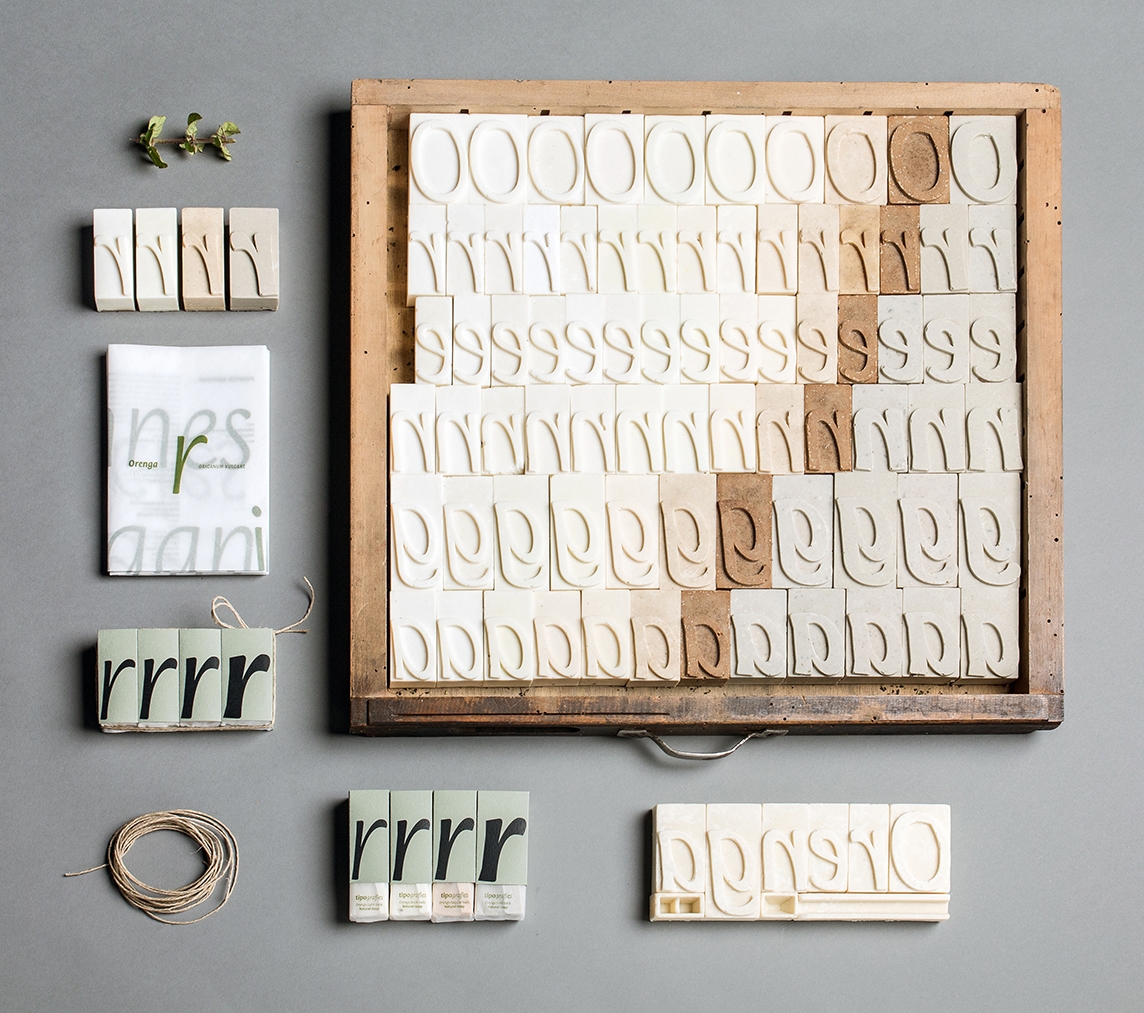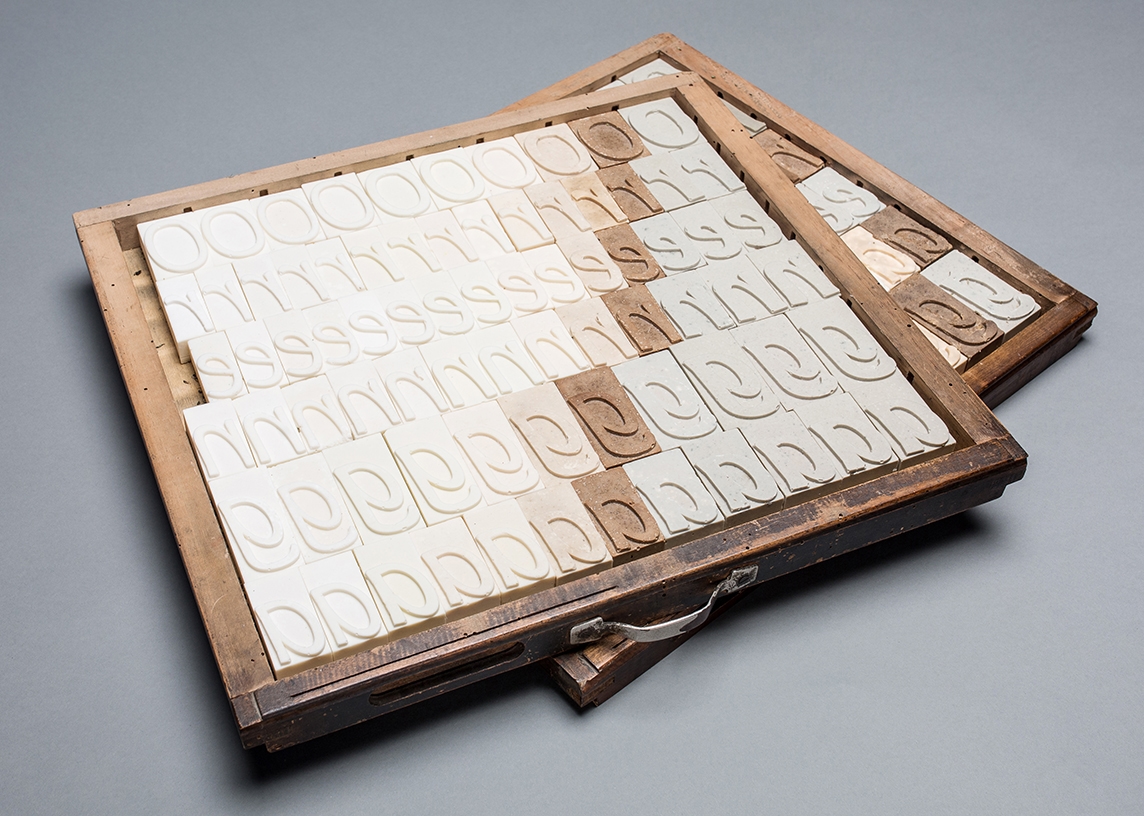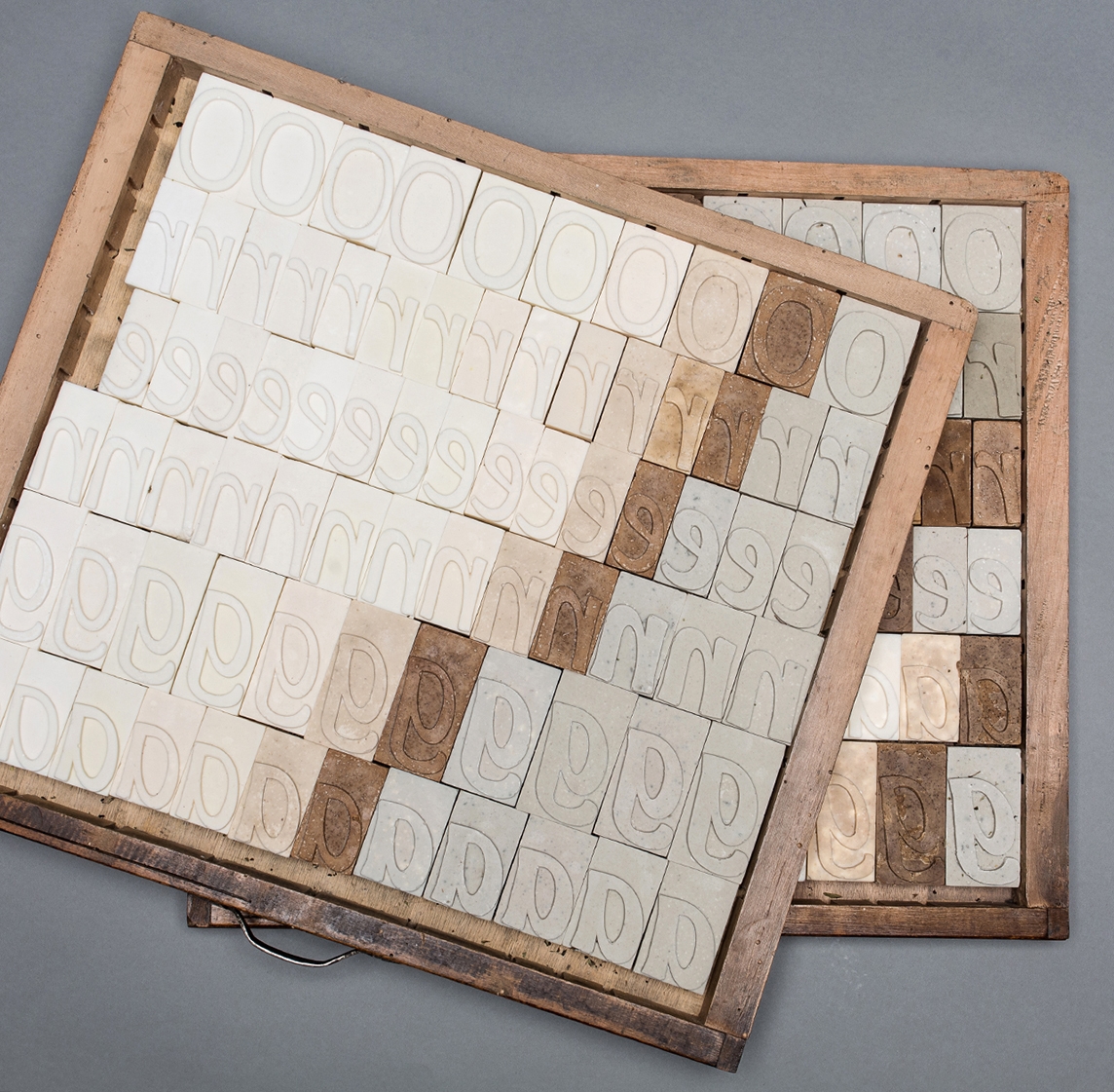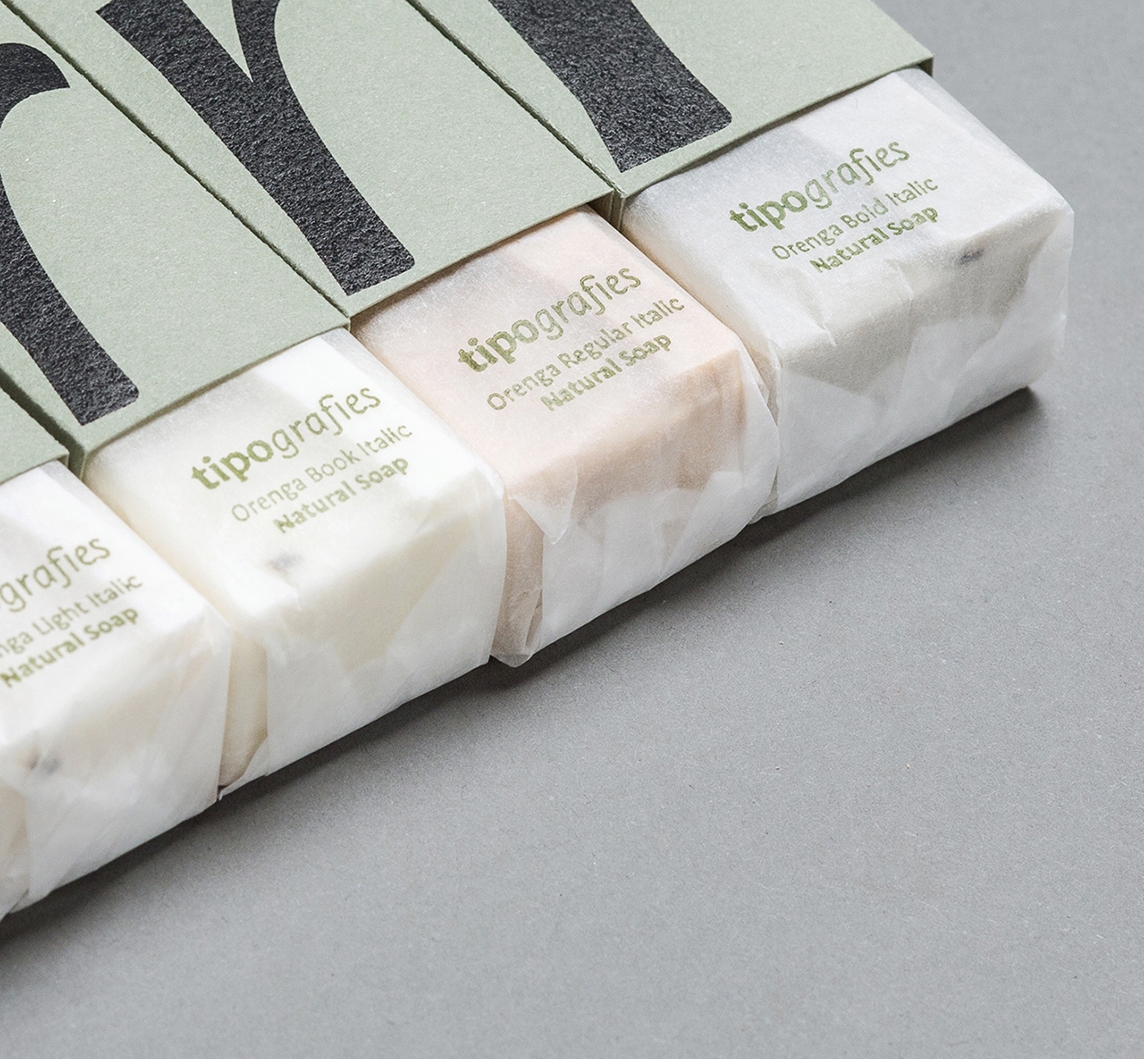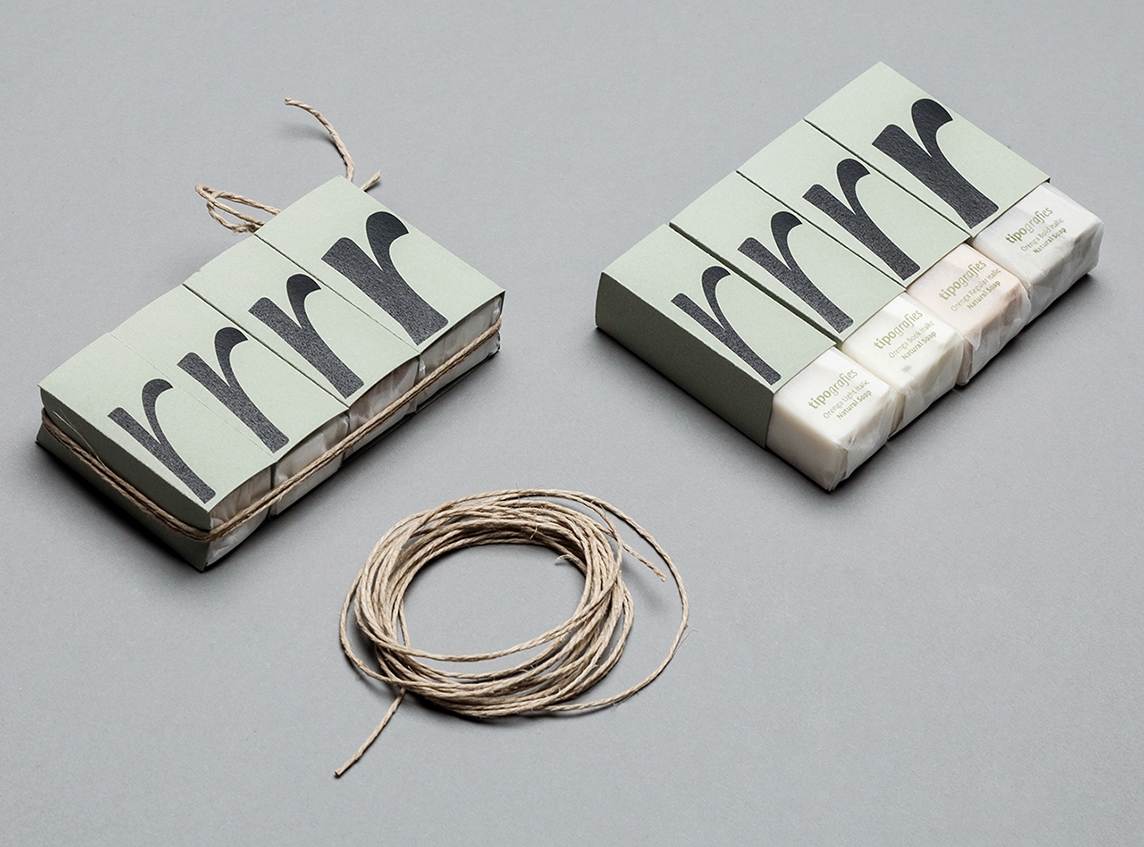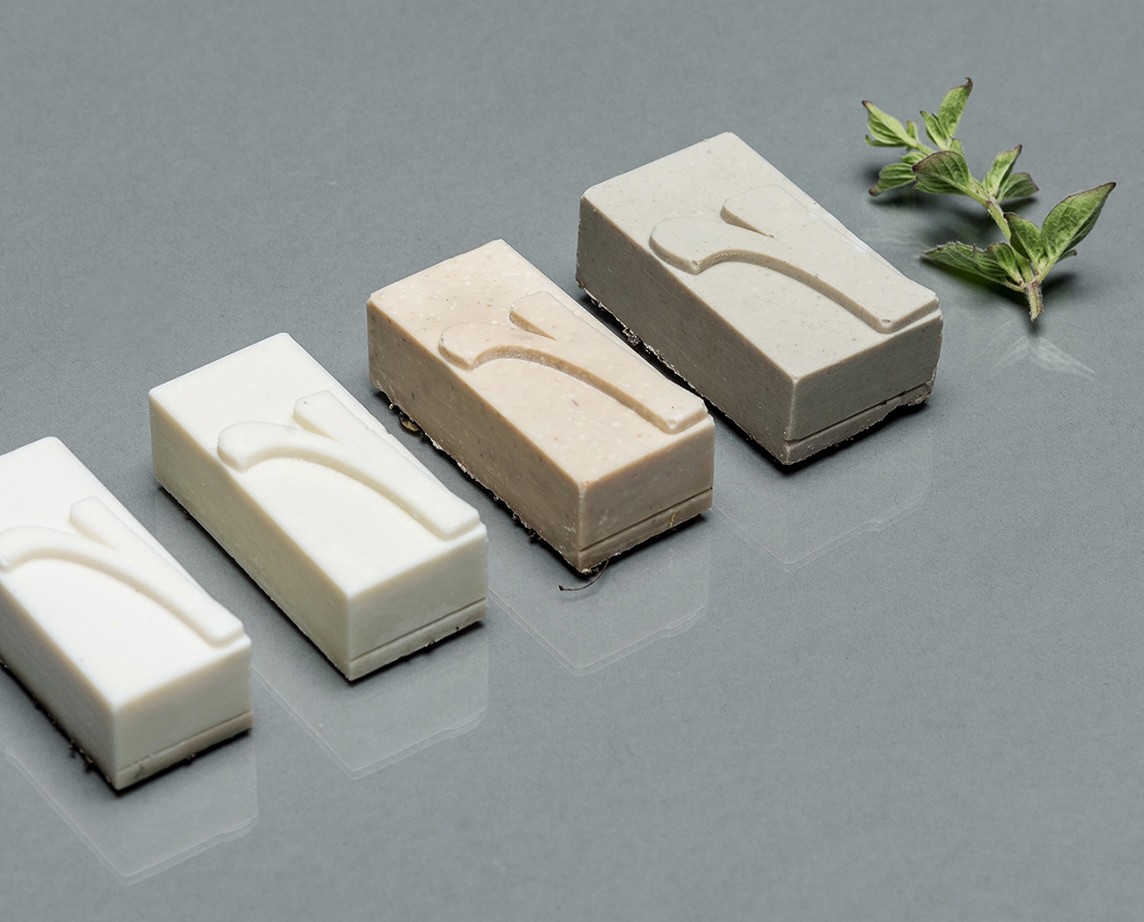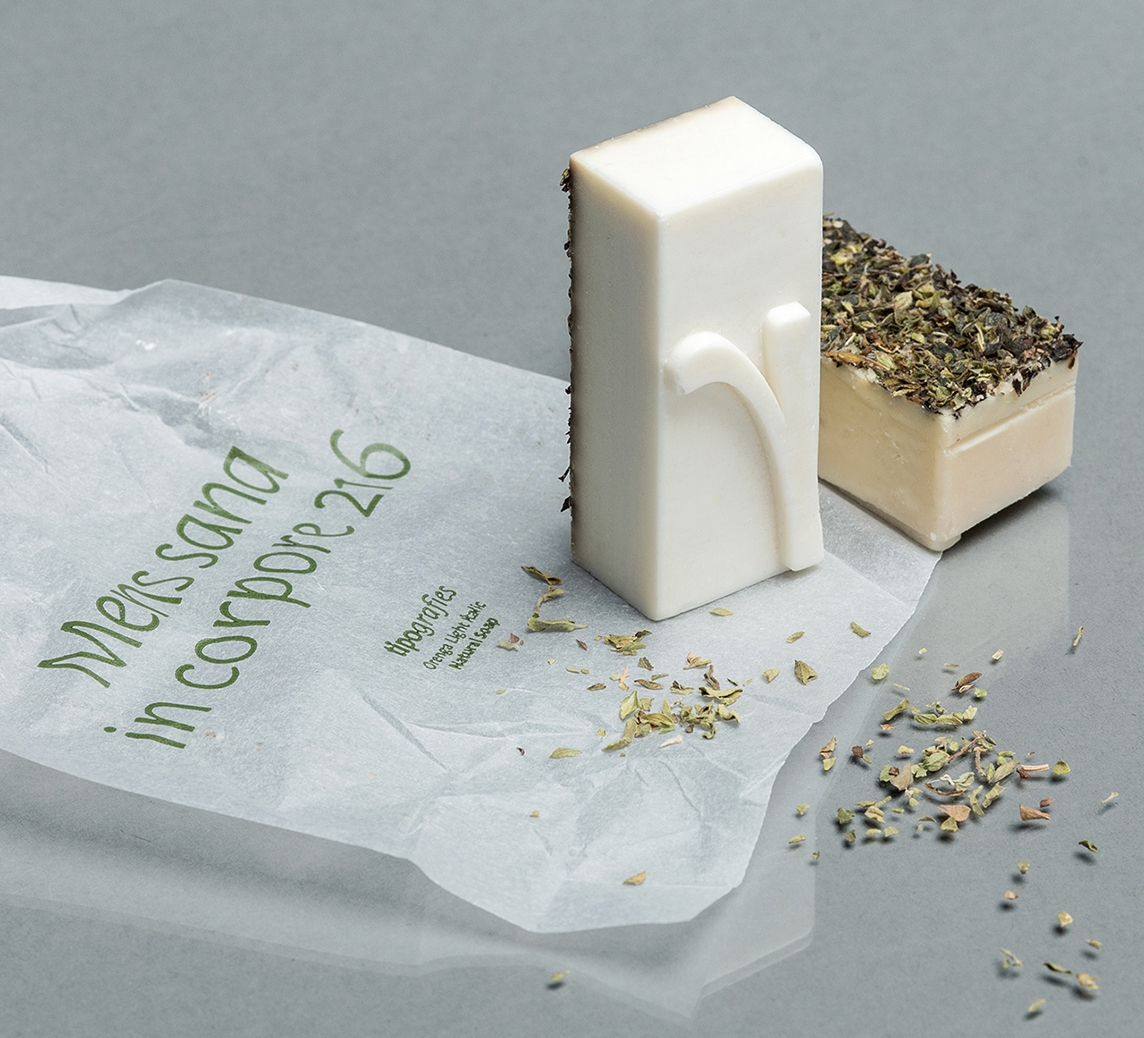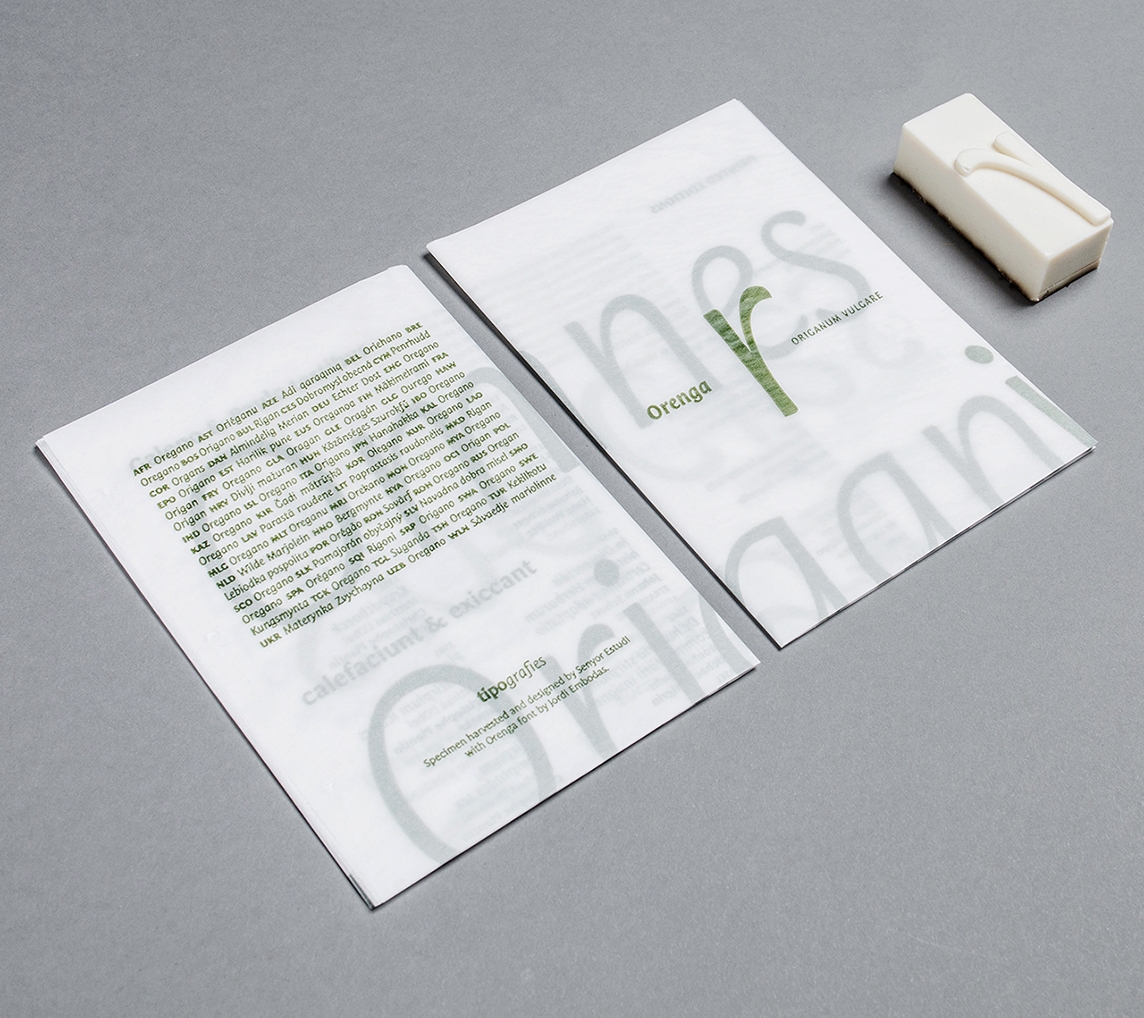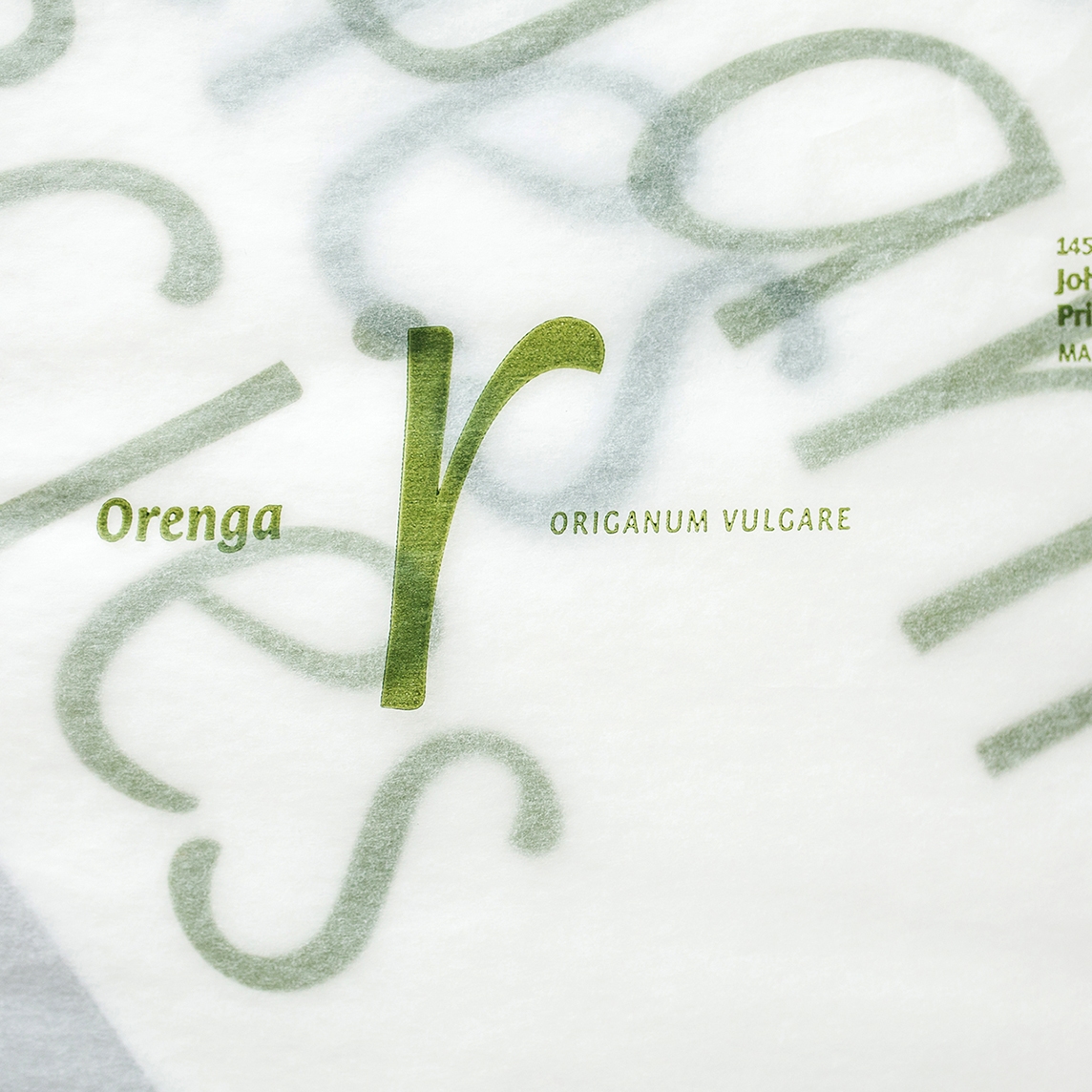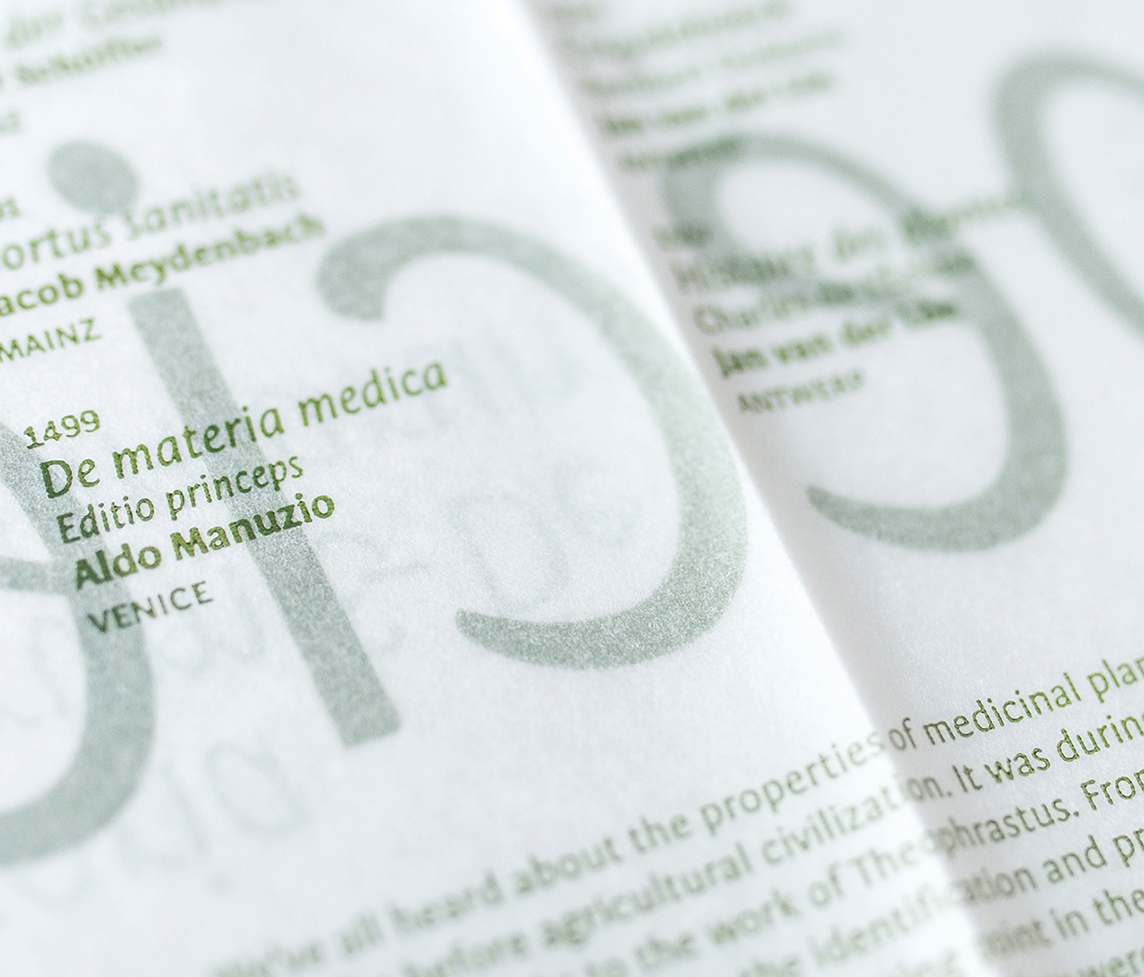
Oreganum Vulgaris Specimen
Font
Orenga
We’ve all heard about the properties of medicinal plants. In fact, we have exploited and used its benefits before agricultural civilization. It was during the Classical Antiquity period when botany emerged, thanks to the work of Theophrastus. From the earliest manuscripts to medieval herbs, all kinds of information on the identification and properties of plants were compiled. The emergence of the printing industry was a turning point in the transmission of knowledge, as the humanists depured the medieval texts and ensured that they were once again faithful to the original classics.